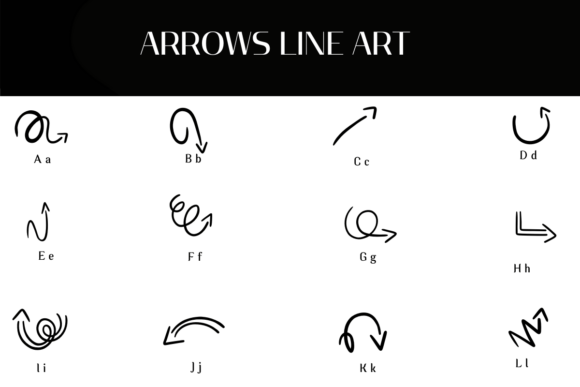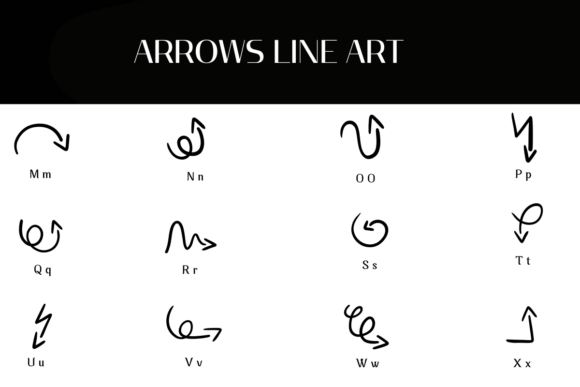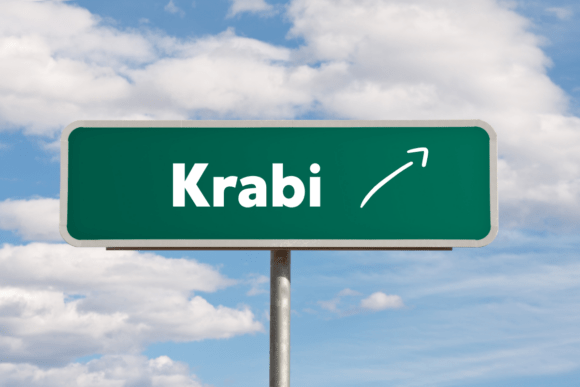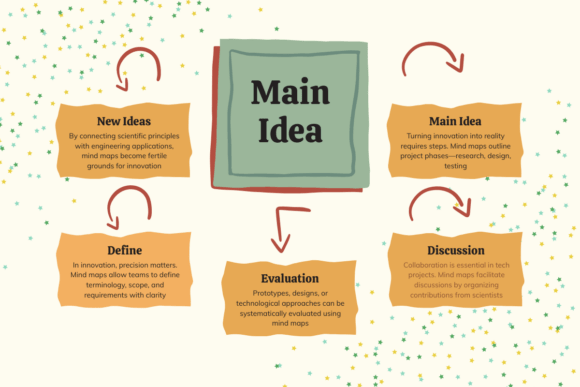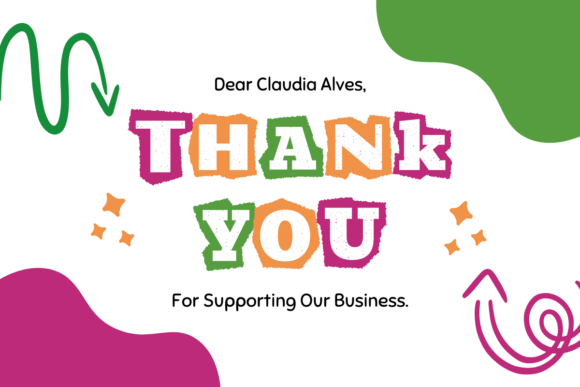
Unlock the Power of Cute Design with Arrows Line Art Font
Have you ever found yourself doodling arrows in the margins of a notebook, or sketching cute icons to decorate a card? For many creatives, doodling is more than just a hobby – it’s a way to express themselves and add a personal touch to their work. Whether you’re a graphic designer, a writer, or simply a lover of all things cute, you know the joy of bringing your ideas to life with a few quick lines and curves.
That’s where the Arrows Line Art Font comes in – a delightful dingbats font that adds a touch of whimsy and fun to your designs. With its cute arrow and icon glyphs, this font is perfect for adding a playful twist to your creative projects. Whether you’re designing a children’s book, a greeting card, or a social media graphic, the Arrows Line Art Font is sure to bring a smile to your face and a touch of personality to your work.
Arrows Line Art Font Key Features
- Font Type: A unique line art font featuring arrow shapes, ideal for designs that require a minimalist and modern aesthetic.
- Unique Characteristics: The font features a range of arrow shapes, from simple to complex, allowing designers to add visual interest and depth to their designs.
Arrows Line Art Font Review
Overall, I’d say that the Arrows Line Art Font is a decent addition to any designer’s toolkit. ✨ One of the things I appreciate is its versatility – it can be used in a variety of contexts, from minimalist designs to more elaborate compositions. The font’s clean lines and geometric shapes make it easy to customize and pair with other fonts.
The arrow motif is also a nice touch, adding a touch of whimsy and visual interest to designs. ✨ I’ve found it particularly useful for creating eye-catching headlines and icons. The font’s flexibility also makes it a great choice for designers who want to create custom graphics and illustrations.
That being said, there are a few limitations to consider. ⚠️ For one, the font’s design can be a bit too simplistic for some applications. In certain contexts, it may not be enough to convey the level of sophistication or elegance that a designer is aiming for.
Additionally, the font’s arrow motif can be a bit distracting if overused. It’s essential to use it judiciously and in moderation to avoid overwhelming the viewer. ⚠️
Overall, I’d give the Arrows Line Art Font 3.5 out of 5 stars. While it’s not perfect, it’s a solid choice for designers who want a versatile and customizable font that can add a touch of personality to their work.
- Pros: Versatile, easy to customize, great for creating custom graphics and illustrations
- Cons: Can be too simplistic, arrow motif can be distracting if overused
Use Arrows Line Art Font to add a modern and minimalist touch to your designs. Pair it with simple colors and bold graphics to create a striking visual effect.
Experiment with different font sizes and styles to create a unique look. Use it to highlight important information or create a sense of hierarchy in your design.
Arrows Line Art Font is perfect for:
- Infographics and data visualizations
- Minimalist posters and flyers
- Digital presentations and reports
- Web design and user interface elements